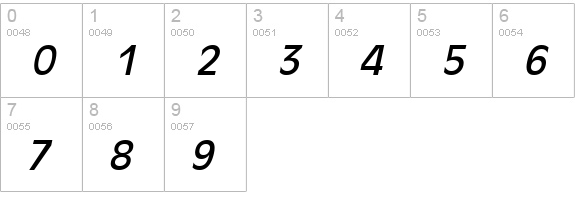
Antiqua 101 Italic Font Details
Antiqua 101 Italic is a distinctive, italic variant in the Antiqua typeface family \xE2\x80\x94 well suited to design and typography projects.
Antiqua 101 Italic is a classic and elegant font that exudes sophistication and charm. With its slanted design and graceful curves, this italic typeface adds a touch of refinement to any project or design. Perfect for conveying a sense of history and tradition, Antiqua 101 Italic is a versatile font that can be used for a variety of purposes, from formal invitations to stylish branding. The best part? Antiqua 101 Italic is available for free download at FontsMarket.com. This means you can easily access this exquisite font to elevate your creations without having to spend a penny. Whether you're a seasoned designer looking to add a timeless touch to your work or a newcomer eager to experiment with different styles, Antiqua 101 Italic is a fantastic choice that won't break the bank. Download it today and watch your designs come to life with a touch of class and sophistication.